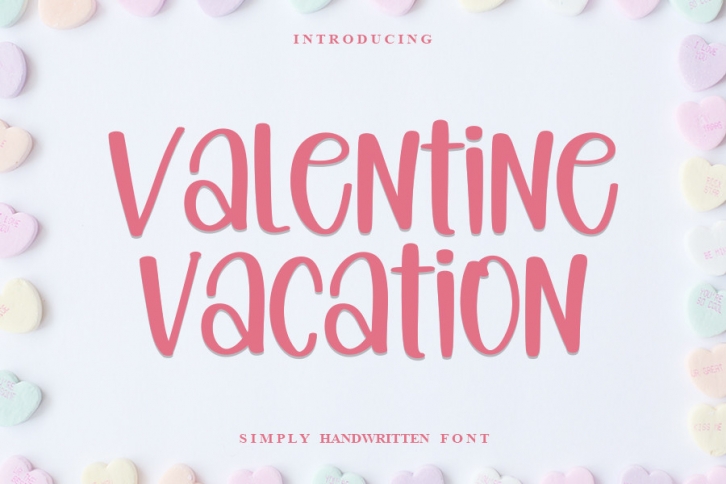
Valentine Vacation is a trendy handwritten font with a contemporary atmosphere and impeccable form, inspired by a timeless classic calligraphy. It will add elegance and class to any of your design projects.